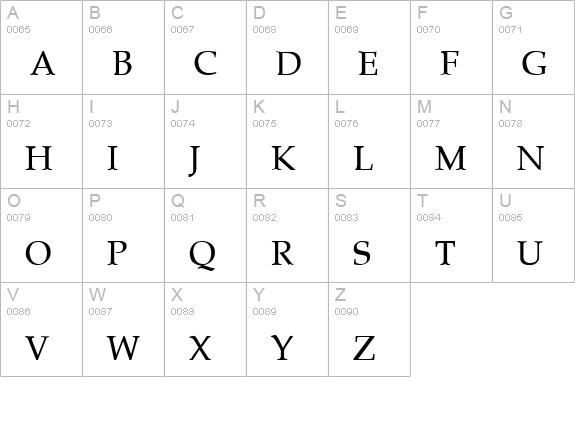
Plinius Font Details
Plinius font is a sophisticated and elegant typeface that exudes timeless charm and class. With its delicate strokes and graceful curves, Plinius is perfect for adding a touch of refinement to any design project. This versatile font is ideal for use in branding, editorial design, invitations, and more. The best part about Plinius font is that it is completely free to download at FontsMarket.com. This means you can easily access this beautiful typeface and enhance your creative work without any cost. Don't miss out on the opportunity to elevate your designs with the luxurious and stylish Plinius font today!